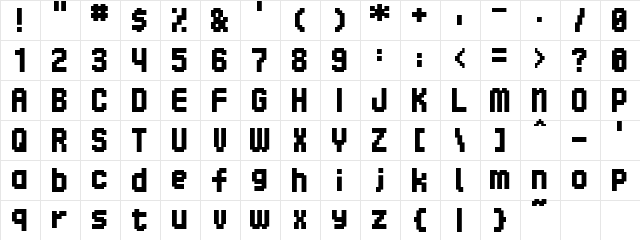
StadiumBitA10 Regular
Design Context for StadiumBitA10 Typeface
StadiumBitA10 offers clean, dependable letterforms without strong stylistic allegiance, making it a practical choice for designers who need flexibility.
Pro Tip: Use StadiumBitA10 in both headline and body roles to test its range before committing to a single application.